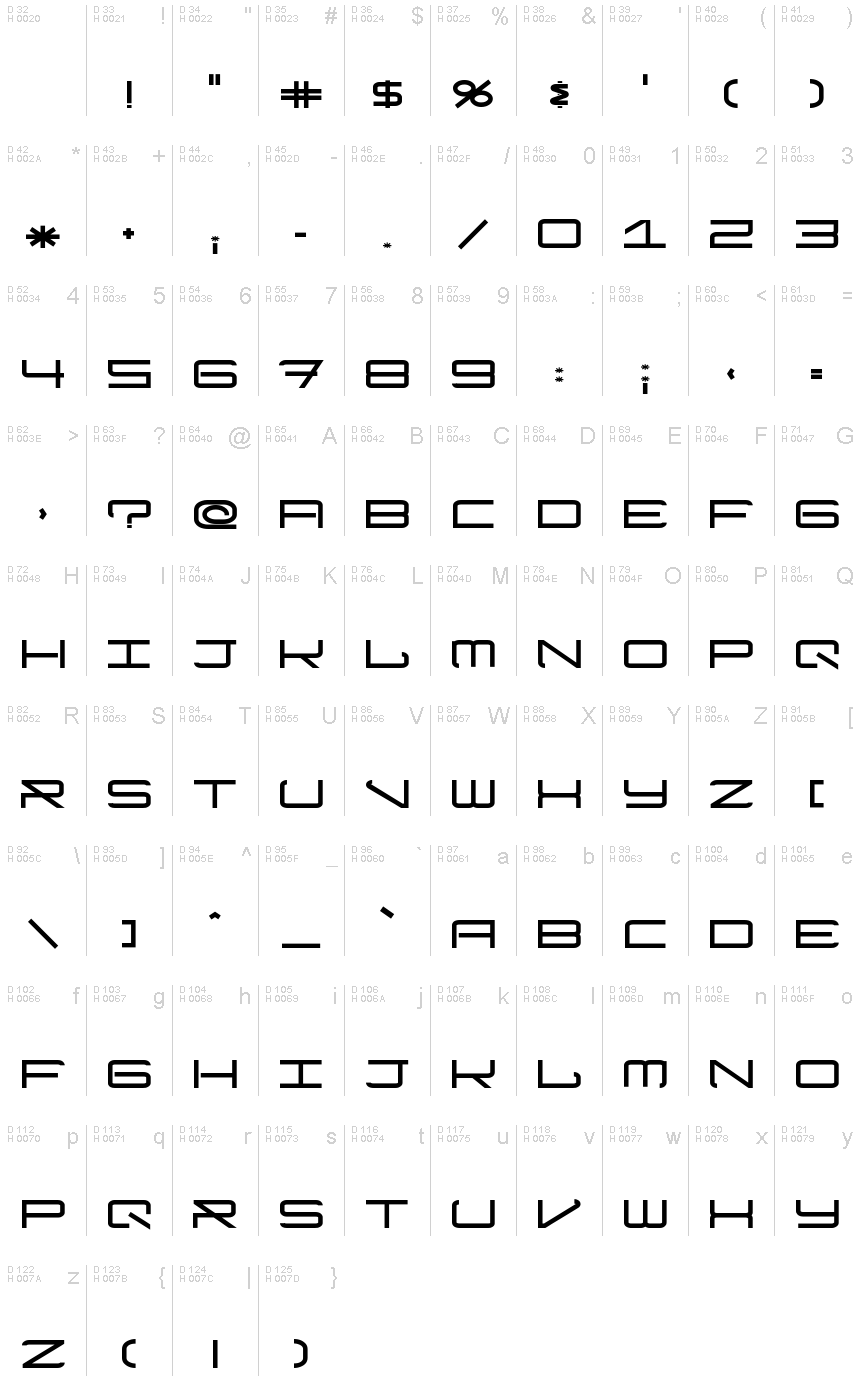
ModernismShort
Modernism Short is a captivating display font that exudes a bold, futuristic aesthetic. Designed by Max Infeld of Xerographer Fonts, this expanded typeface seamlessly blends modern sensibilities with a distinct techno-inspired flair.
The sharp, angular letterforms and clean, minimalist lines create a striking visual impact, making this font an ideal choice for a range of design applications, from eye-catching headlines and logos to dynamic branding and packaging.
With its expanded width and confident presence, Modernism Short commands attention and elevates any design it graces, effortlessly bridging the gap between functionality and artistic expression.